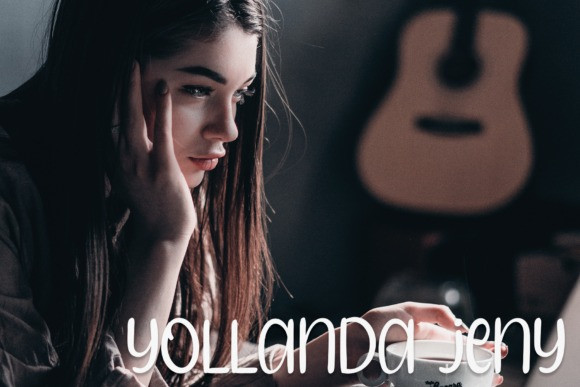
Vintage Memory Font
Vintage Memory Font is a playful and clean handwritten font. It is suitable for any branding project like logos, t-shirt printing, sport designs, and more. It will look outstanding in a wide range of contexts.